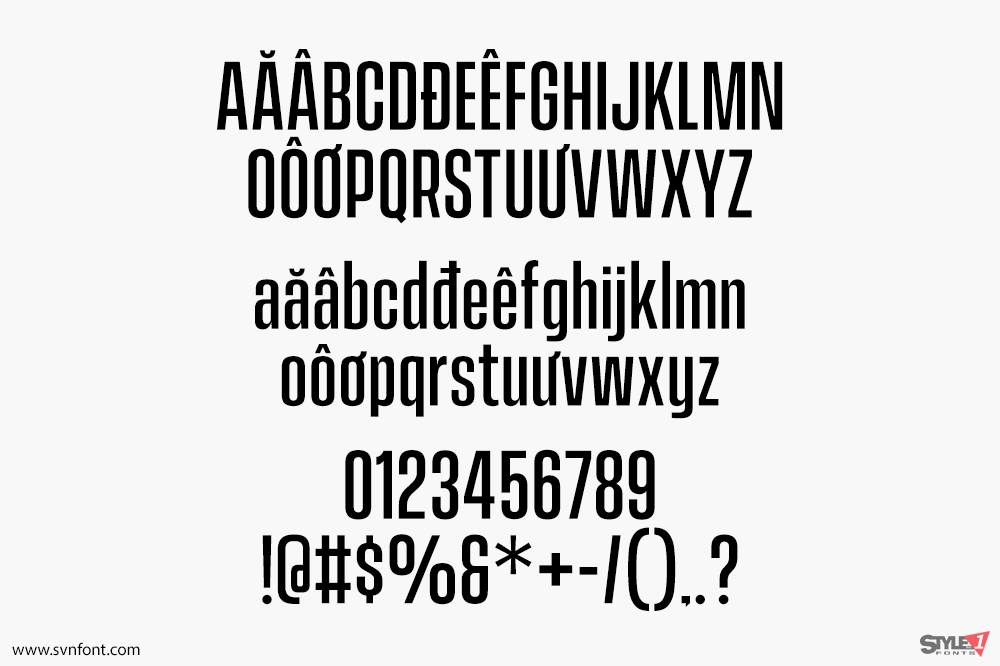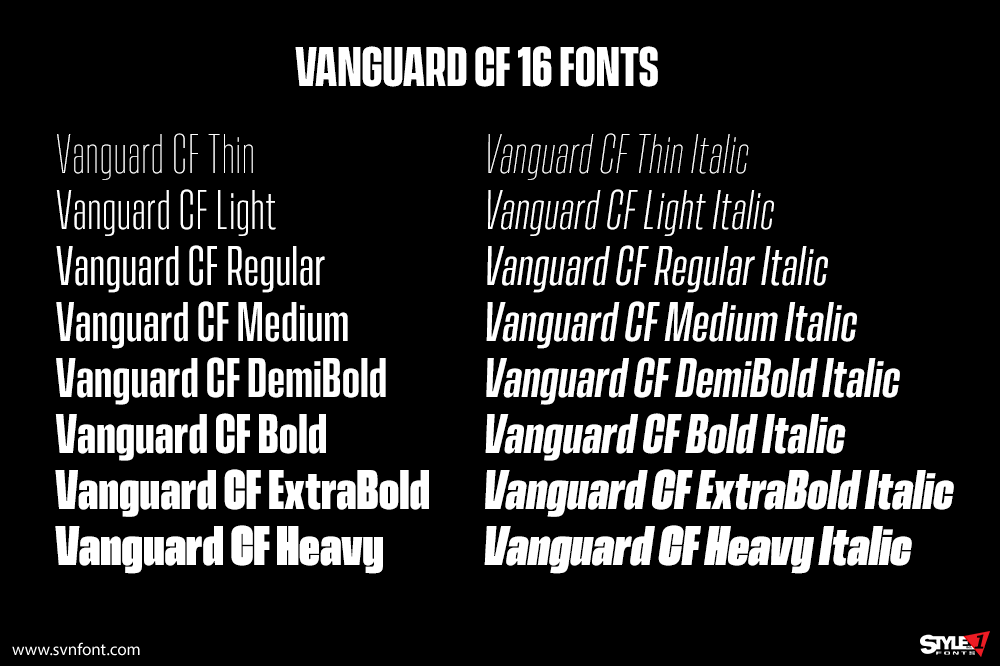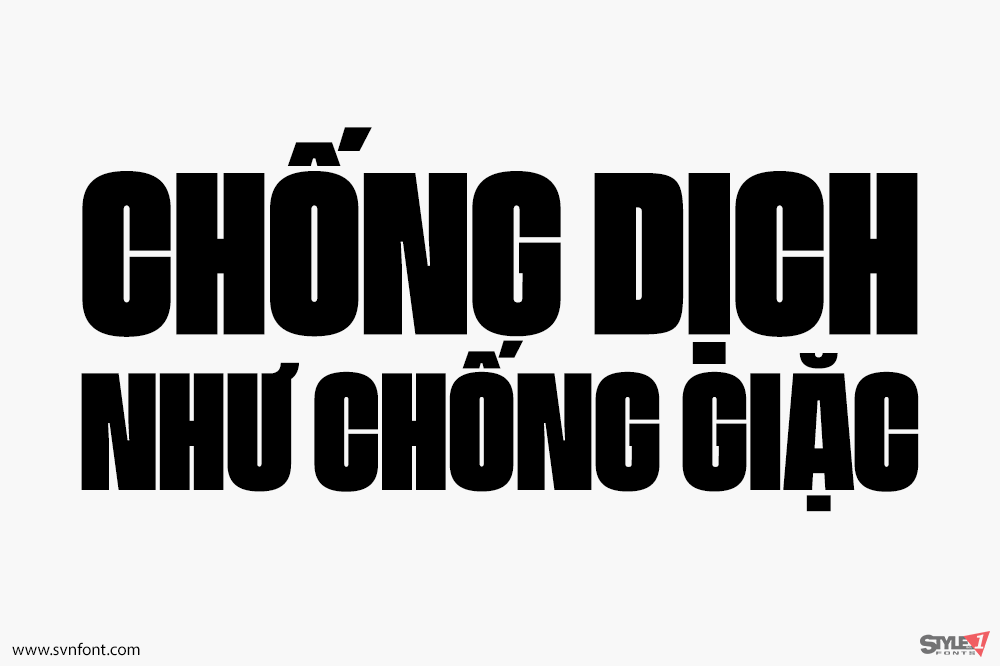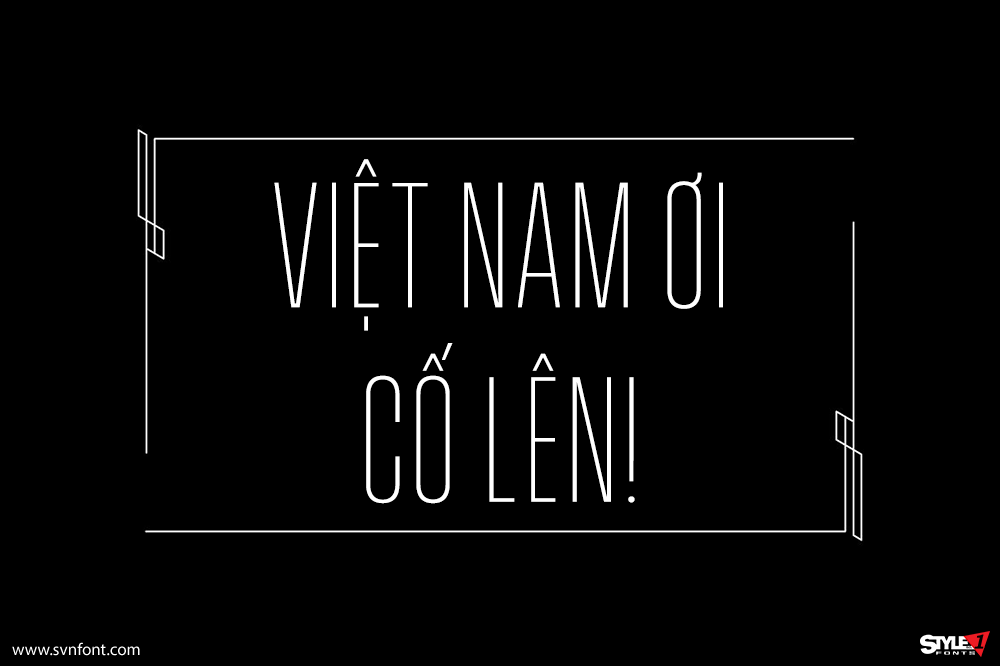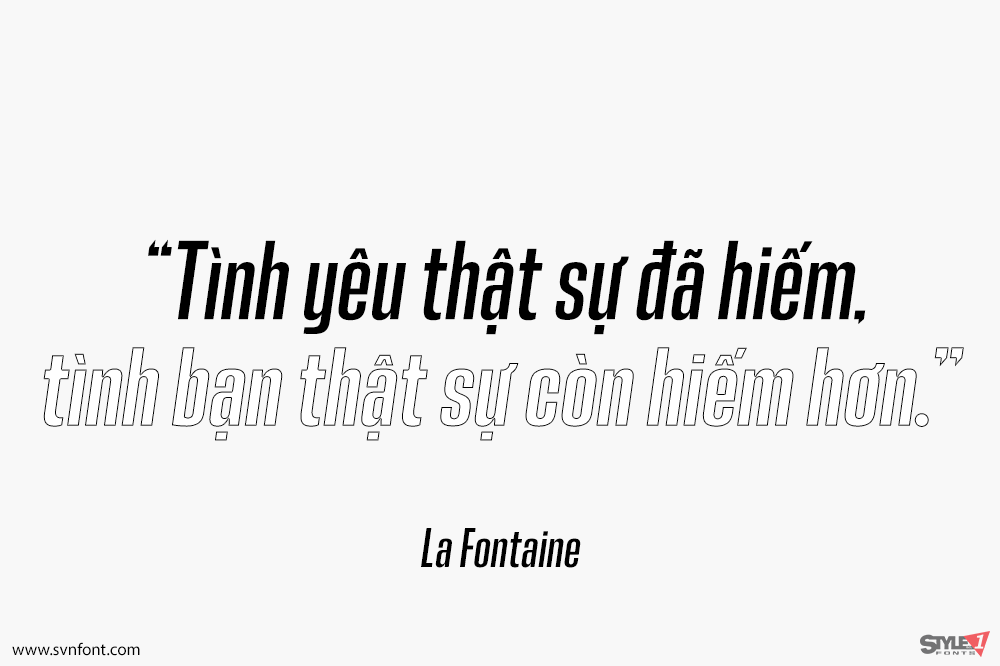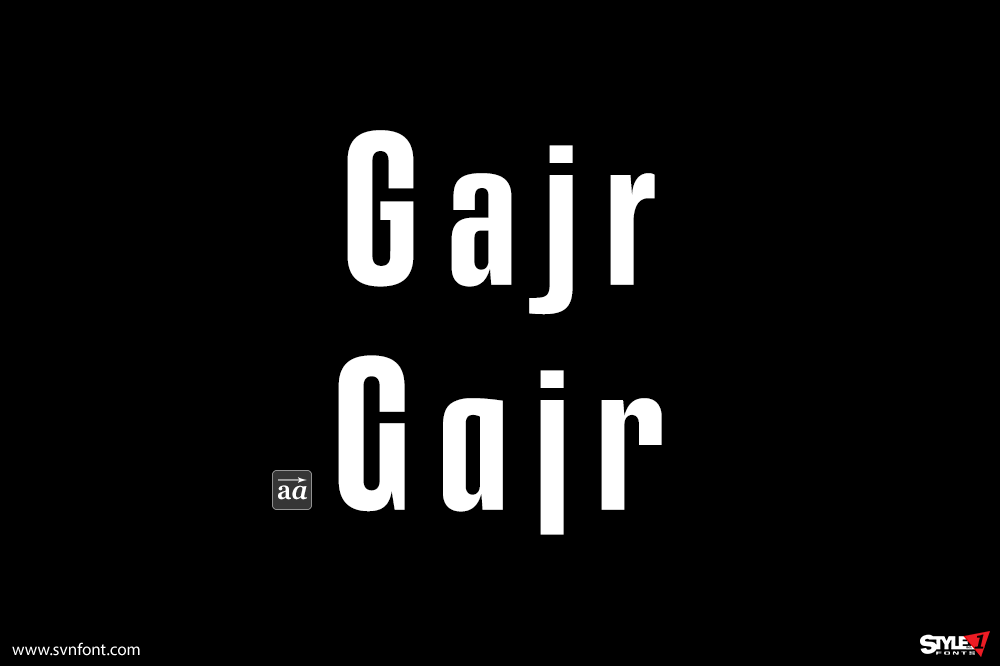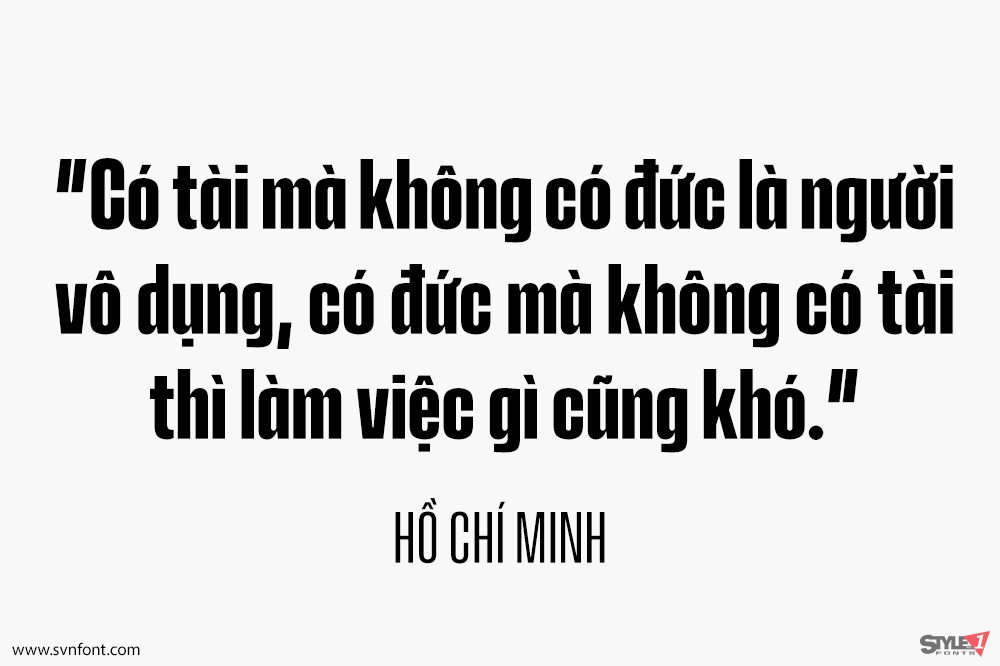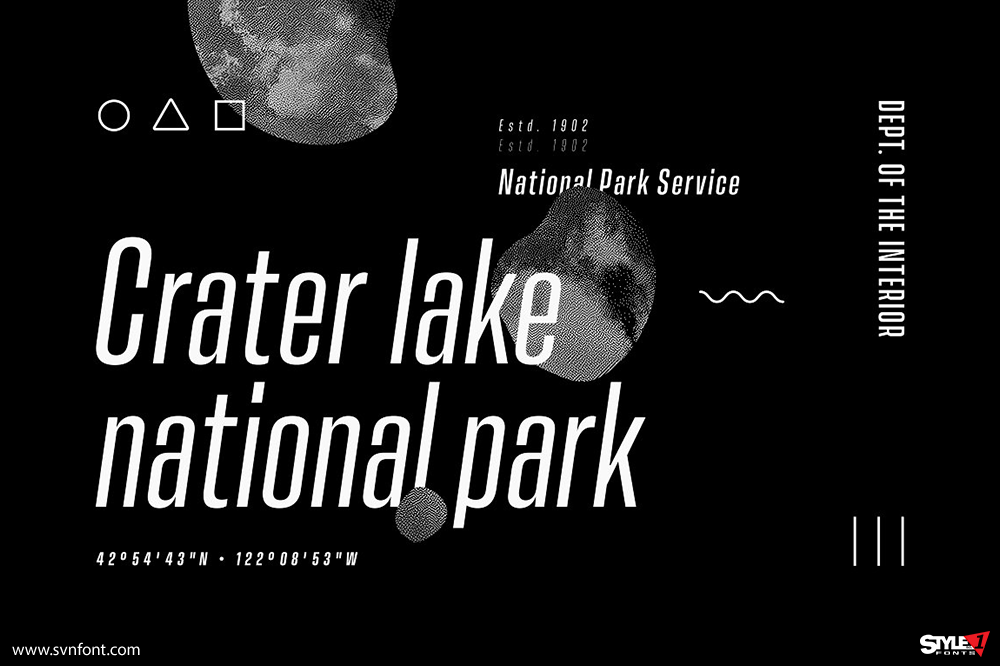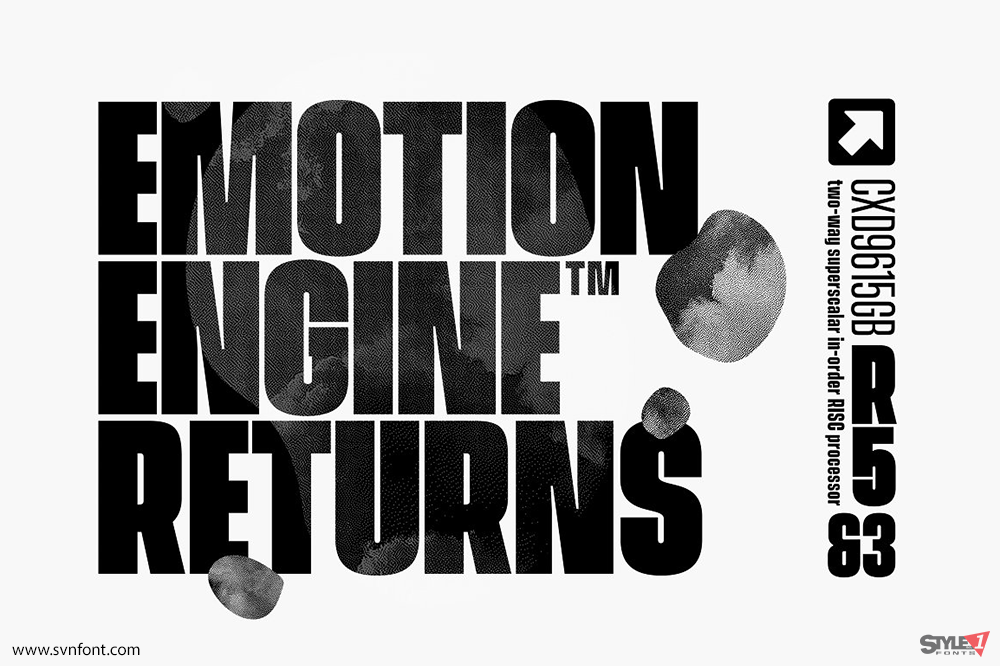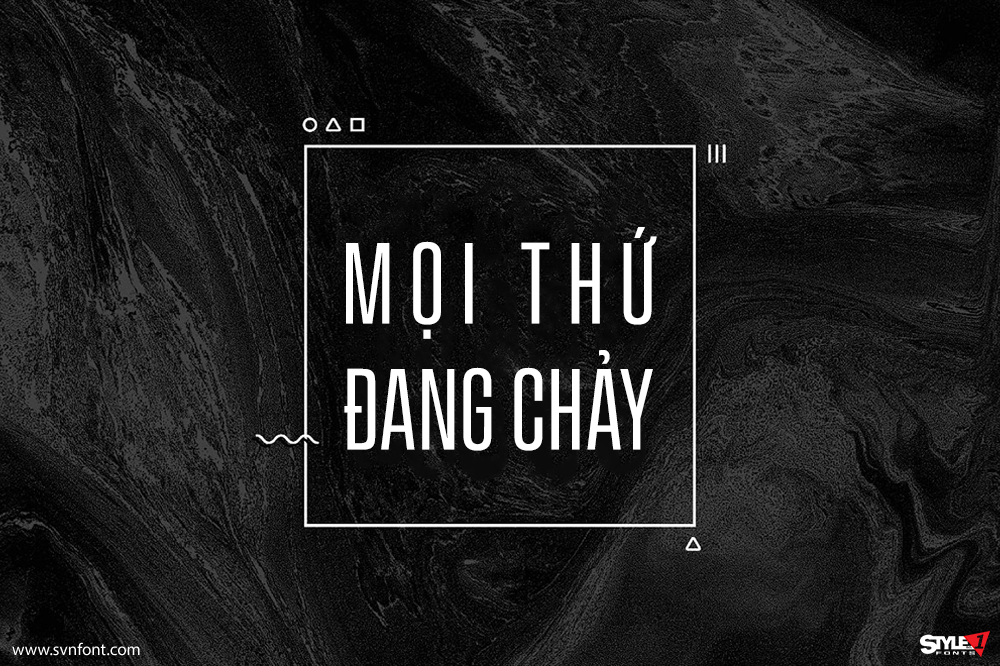
[Việt hóa] SVN-Vanguard CF (16 fonts)
Vanguard CF is a powerful and elegant display typeface, constructed to maximize use of horizontal space. Built from hand sketches drawn over several years, Vanguard’s eight weights span an elegant Thin to an arresting Heavy, with accompanying obliques. As with its sibling Integral CF, Vanguard makes a strong impression in print, headlines, video, and social media – whether paired with a contrasting typeface or on its own.
Version 2 adds a host of improvements, including revised kerning, improved letterforms, two sets of quotation marks, and a full set of lowercase letters, making Vanguard even more versatile than before.
Nhà thiết kế: Connary Fagen
Nhà phát hành: Connary Fagen